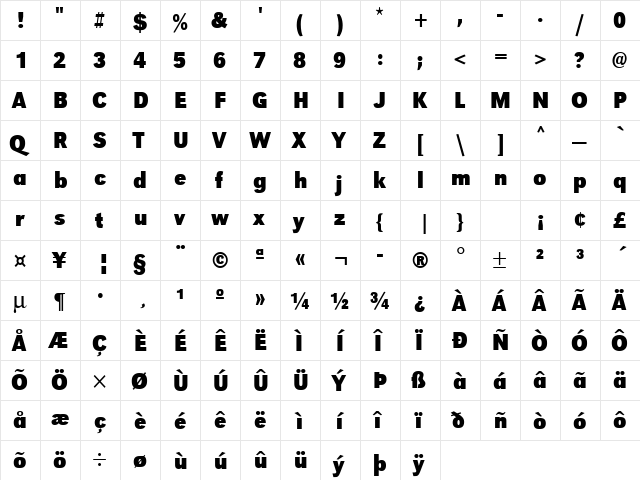
URWGroteskTExtNar Bold Font Preview
URWGroteskTExtNar Bold
Design Context for URWGroteskTExtNar Typeface
URWGroteskTExtNar has the quiet confidence of well-executed sans-serif typography: versatile, unobtrusive, and dependable at any size. Its bold stroke weight gives it real presence on the page.
A strong choice for UI design, app interfaces, bold signage, and corporate brand systems.
Font Pairing: Use URWGroteskTExtNar for headlines alongside a lighter-weight sans or serif for body copy to establish clear visual hierarchy.
Pro Tip: Pair URWGroteskTExtNar with a display or serif font for headlines — its neutral character makes it an excellent supporting player in complex typographic systems.